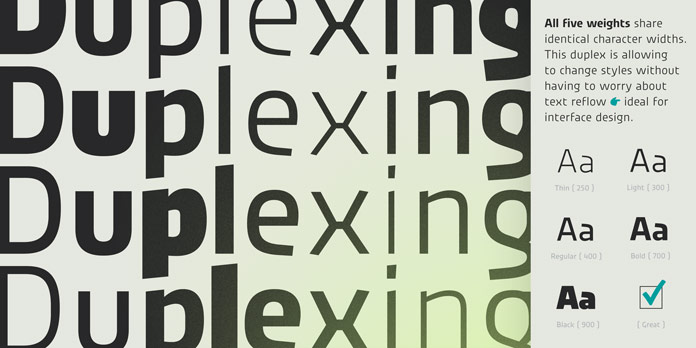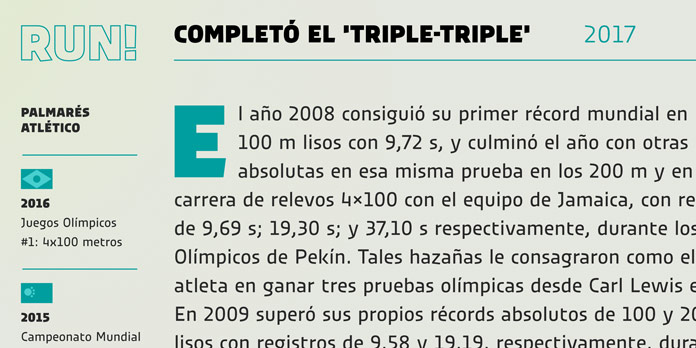
Urby, an unconventional and playful sans serif designed by Jakob Runge of foundry Type Mates.
Designed in 2016/2017 by Jakob Runge of foundry Type Mates, Urby is a unique sans serif that comes in 5 weights ranging from thin to black. This playful typeface is complemented by Urby Soft. Both families and their five weights can be used interchangeably. The idea behind the typeface was to design a font that combines seemingly loose dynamic shapes with technical functionality. Whether print or on screen, this display font can be used for themes such as sports, outdoor activities, music, technology, and many more. Please read more below or click on the following link to purchase the typeface. Only for a very limited time, you can get it 50% off!
Some of Urby’s main features.
All included weights and styles are based on identical widths, which makes it an ideal choice for user interface design. This dynamic display font was made for eye-catching headlines and short text sections. Its playful look and feel is the result of extremely wide apertures in characters like ‘a’, ‘e’, ‘s’ as well as organic stroke endings in the letters ‘v’ and ‘x’. The full character set supports most Latin based languages and includes useful dingbats and several geometric shapes. For further information on all details, just follow the link below.